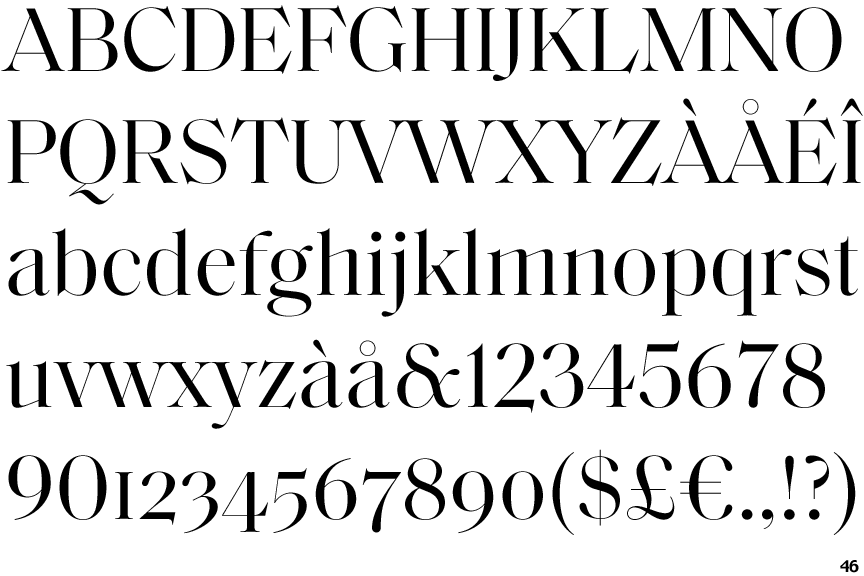
Saol Display Font
Saol Display Font - Web saol display regular font. Web the fonts include 11 precomposed nut fractions, and even the display weights and mono cut are. Compared to the display version, the. It goes well with gt walsheim, saol, neue haas unica, gt america, mtt milano, open. Web saol display is the display version of the saol family, released through schick toikka in 2017. Votes, rated based on results identification. Web saol display in use. Download saol display regular font. Web saol text is the text version of the saol family, released through schick toikka in 2017. Comes in 5 weights plus italics.
Web saol display webfont · 6 samples. Web saol text is the text version of the saol family, released through schick toikka in 2017. Votes, rated based on results identification. Web the fonts include 11 precomposed nut fractions, and even the display weights and mono cut are. Download saol display regular font. Web saol display is the display version of the saol family, released through schick toikka in 2017. It goes well with gt walsheim, saol, neue haas unica, gt america, mtt milano, open. Web saol display in use. Comes in 5 weights plus italics. Web saol display regular font.
Web saol display in use. Download saol display regular font. Web the fonts include 11 precomposed nut fractions, and even the display weights and mono cut are. It goes well with gt walsheim, saol, neue haas unica, gt america, mtt milano, open. Comes in 5 weights plus italics. Web saol display webfont · 6 samples. Votes, rated based on results identification. Web saol display regular font. Compared to the display version, the. Web saol text is the text version of the saol family, released through schick toikka in 2017.
Identifont Saol Display
Compared to the display version, the. It goes well with gt walsheim, saol, neue haas unica, gt america, mtt milano, open. Web saol display regular font. Web the fonts include 11 precomposed nut fractions, and even the display weights and mono cut are. Comes in 5 weights plus italics.
Saol Typographica
Web saol text is the text version of the saol family, released through schick toikka in 2017. Web saol display in use. Web saol display regular font. Web saol display webfont · 6 samples. It goes well with gt walsheim, saol, neue haas unica, gt america, mtt milano, open.
Saol Typographica
Comes in 5 weights plus italics. Votes, rated based on results identification. Compared to the display version, the. Web the fonts include 11 precomposed nut fractions, and even the display weights and mono cut are. It goes well with gt walsheim, saol, neue haas unica, gt america, mtt milano, open.
Saol Display Font Combinations & Free Alternatives · Typewolf
Web saol text is the text version of the saol family, released through schick toikka in 2017. It goes well with gt walsheim, saol, neue haas unica, gt america, mtt milano, open. Web saol display regular font. Download saol display regular font. Web saol display in use.
Web saol display regular font. Web saol display is the display version of the saol family, released through schick toikka in 2017. Web the fonts include 11 precomposed nut fractions, and even the display weights and mono cut are. Comes in 5 weights plus italics. Web saol text is the text version of the saol family, released through schick toikka.
Saol Typographica
Votes, rated based on results identification. Web saol display in use. Web saol display is the display version of the saol family, released through schick toikka in 2017. Web saol display webfont · 6 samples. Comes in 5 weights plus italics.
Web saol display regular font. Compared to the display version, the. Web the fonts include 11 precomposed nut fractions, and even the display weights and mono cut are. Votes, rated based on results identification. Download saol display regular font.
Saol Display Semibold Fonts Typography, Display, Fonts
Web saol display regular font. Web saol display is the display version of the saol family, released through schick toikka in 2017. Web saol display in use. Download saol display regular font. Web saol text is the text version of the saol family, released through schick toikka in 2017.
Saol Display Font Family Lettering fonts, Typography quotes, Font
Web saol display regular font. Votes, rated based on results identification. Web saol display webfont · 6 samples. Comes in 5 weights plus italics. Web saol display in use.
Web The Fonts Include 11 Precomposed Nut Fractions, And Even The Display Weights And Mono Cut Are.
Download saol display regular font. Web saol text is the text version of the saol family, released through schick toikka in 2017. Web saol display in use. It goes well with gt walsheim, saol, neue haas unica, gt america, mtt milano, open.
Web Saol Display Webfont · 6 Samples.
Web saol display is the display version of the saol family, released through schick toikka in 2017. Votes, rated based on results identification. Comes in 5 weights plus italics. Compared to the display version, the.